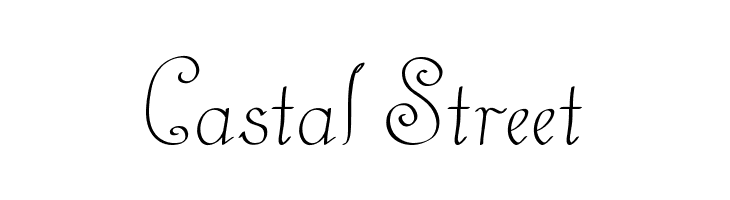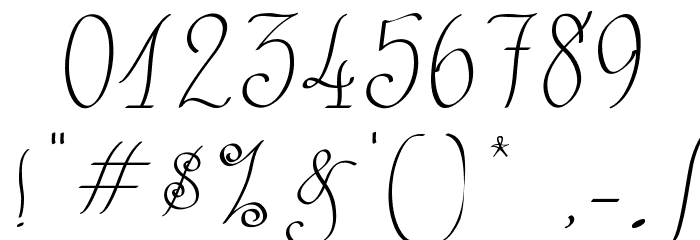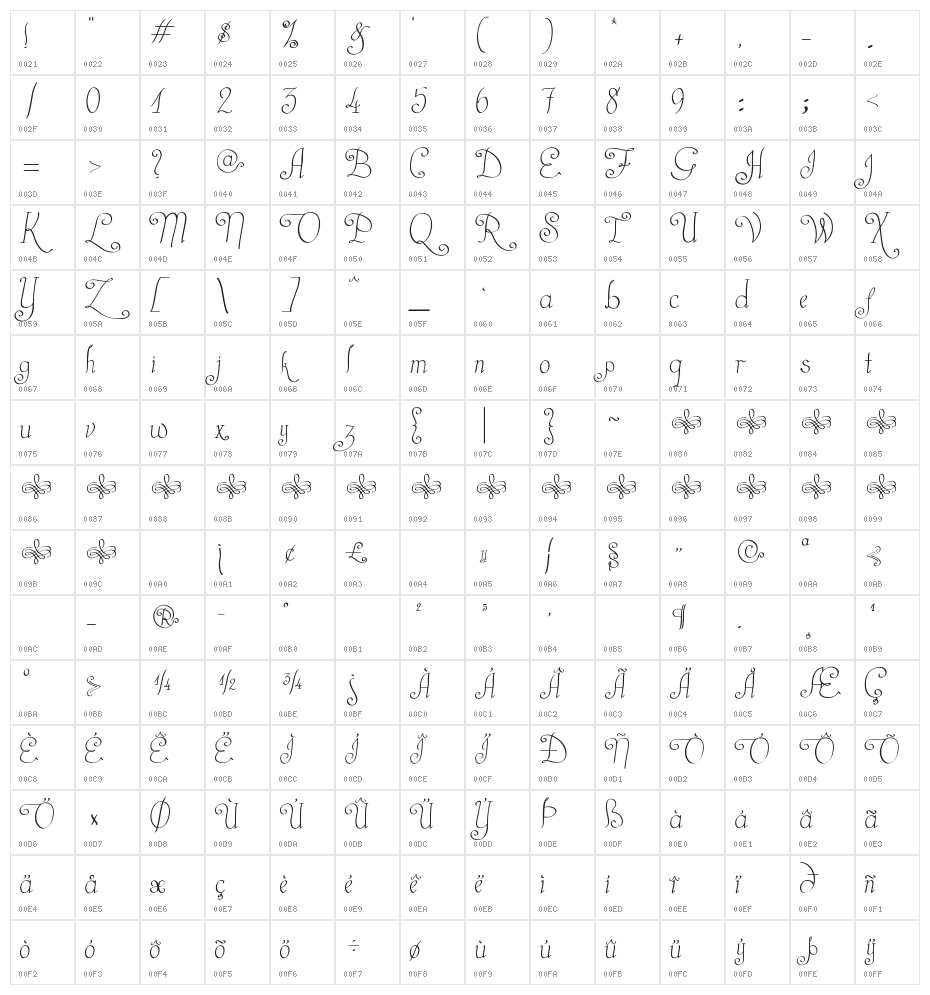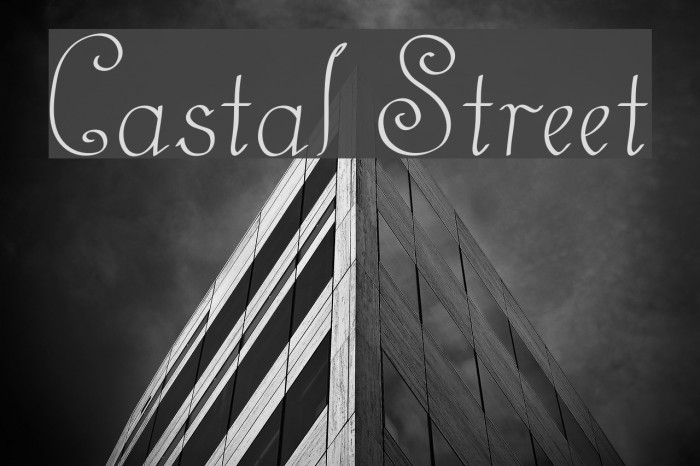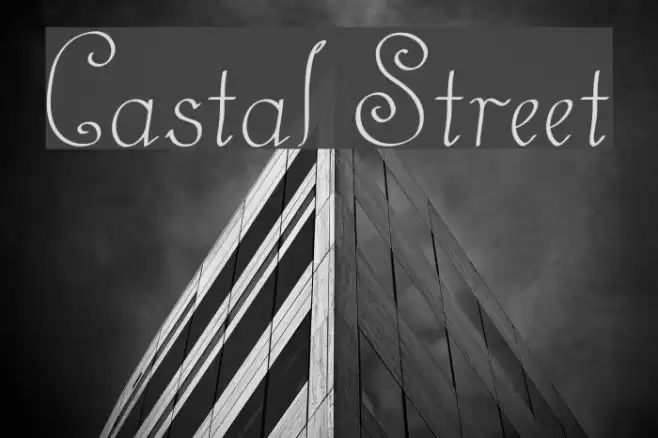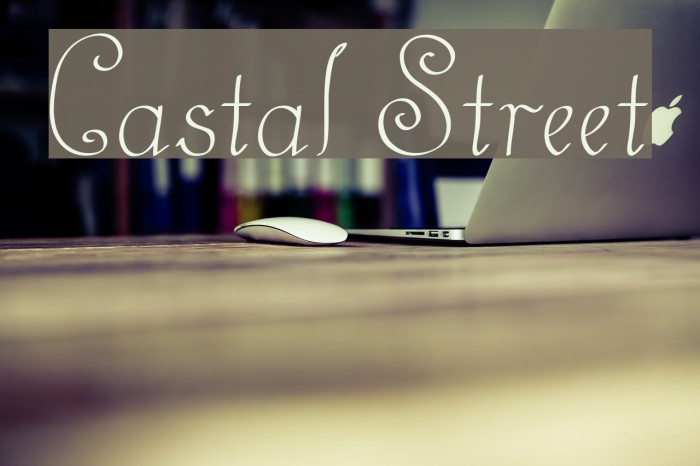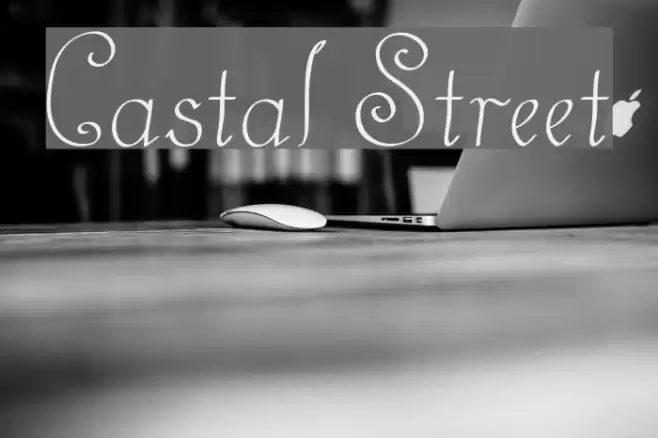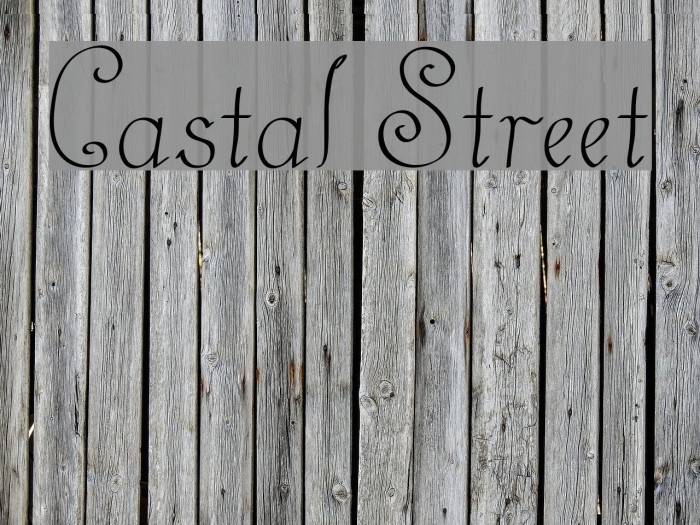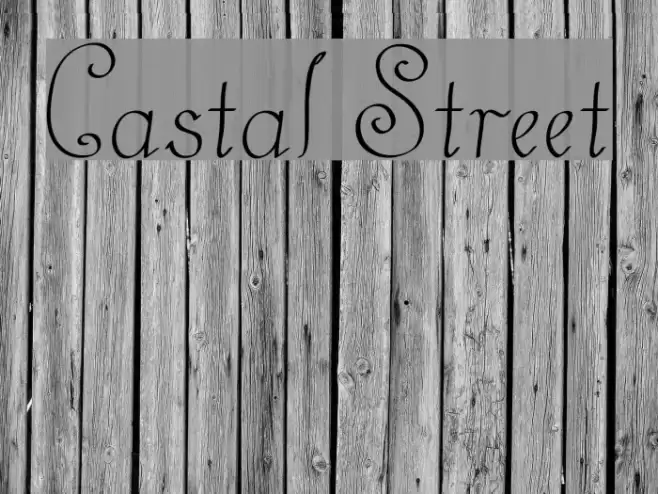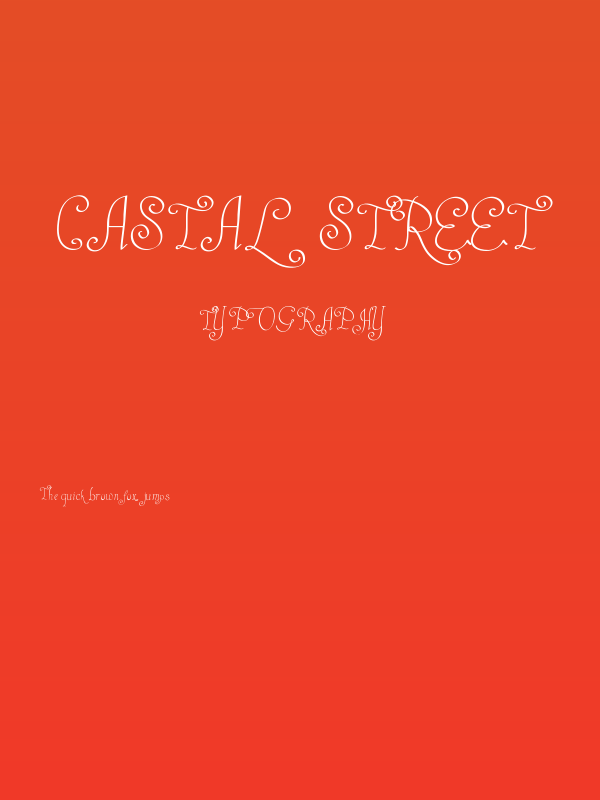
Castal Street Font
Castal Street Description
This font features an elegant and decorative style with swirling, ornate details that give it a whimsical and artistic flair. The uppercase letters are particularly elaborate, with intricate loops and curls that add a sense of movement and grace. The lowercase letters maintain a similar aesthetic, though slightly more restrained, ensuring readability while still offering a touch of sophistication. The numerals are consistent with the overall style, featuring subtle curves that complement the letters. Special characters are designed with the same attention to detail, making them suitable for decorative purposes. This font is ideal for projects that require a touch of elegance and creativity.
| Proposed Projects | Ideal for wedding invitations, greeting cards, branding, and decorative signage. |